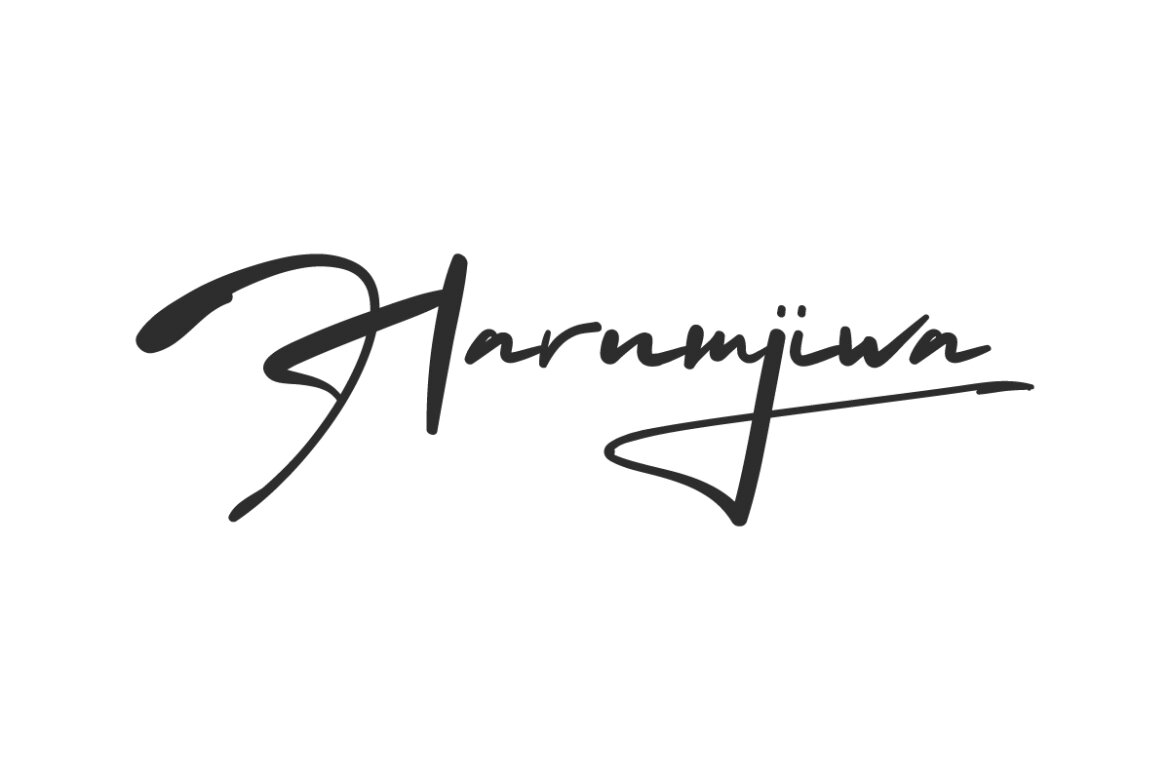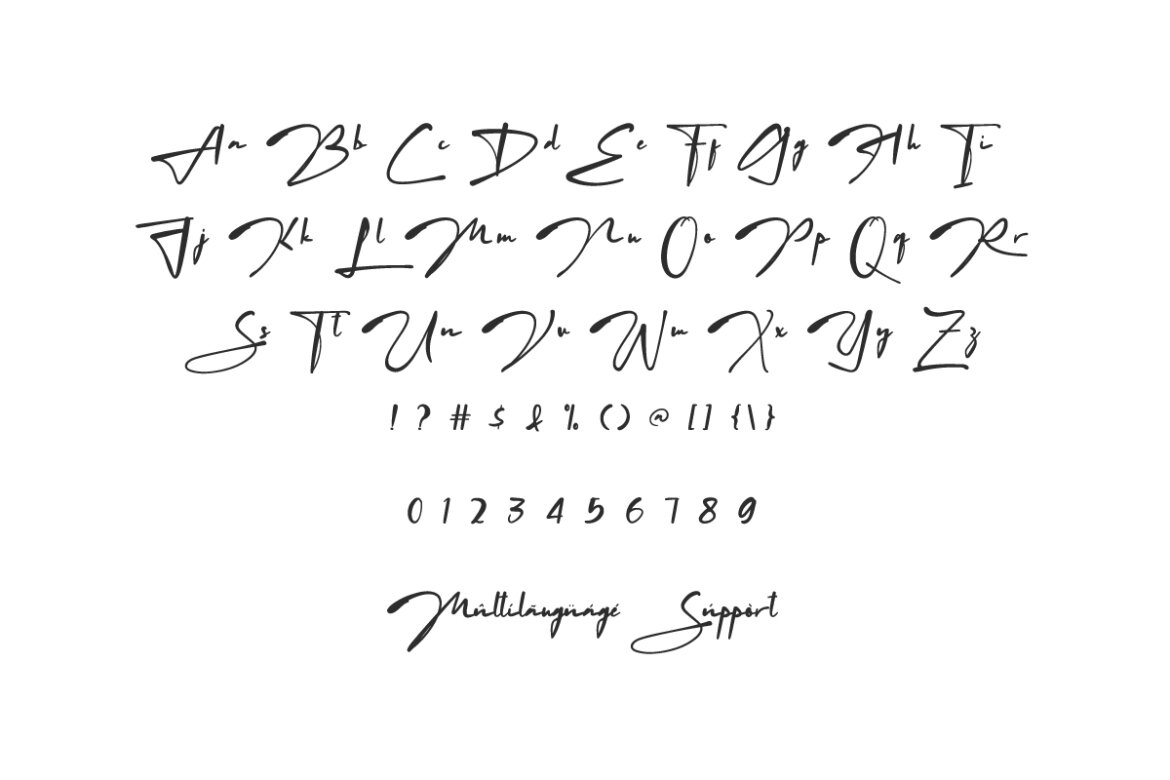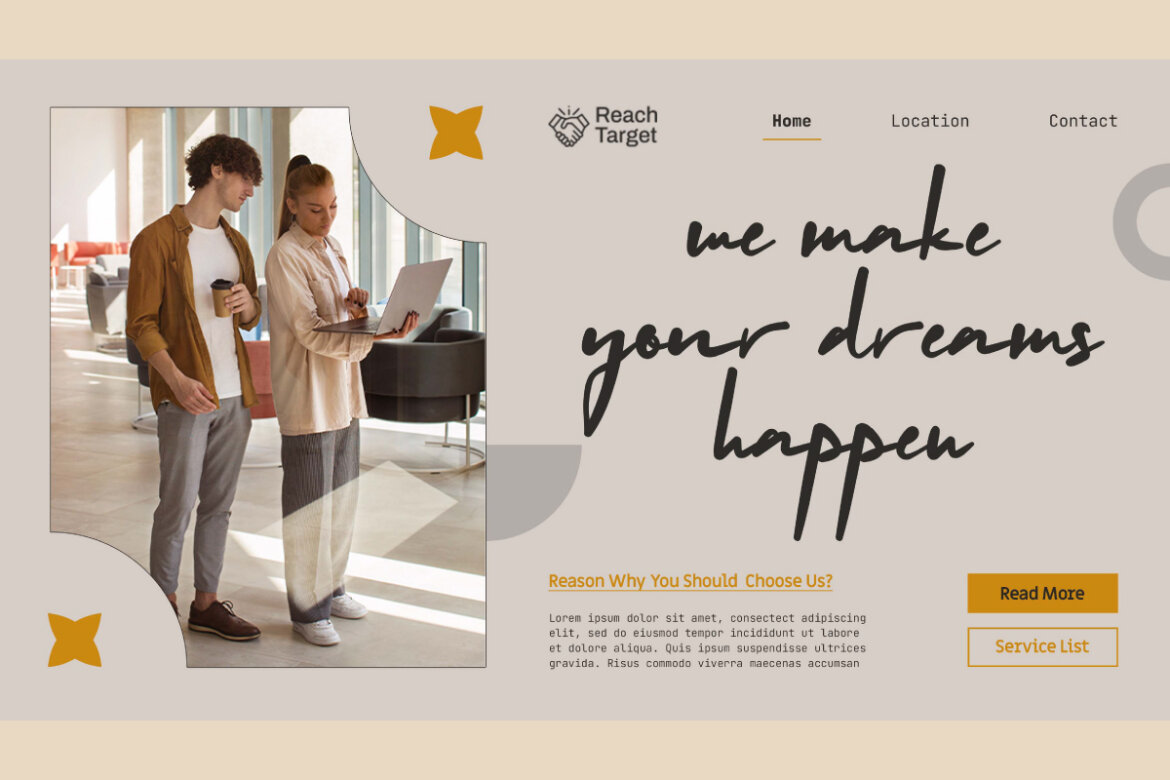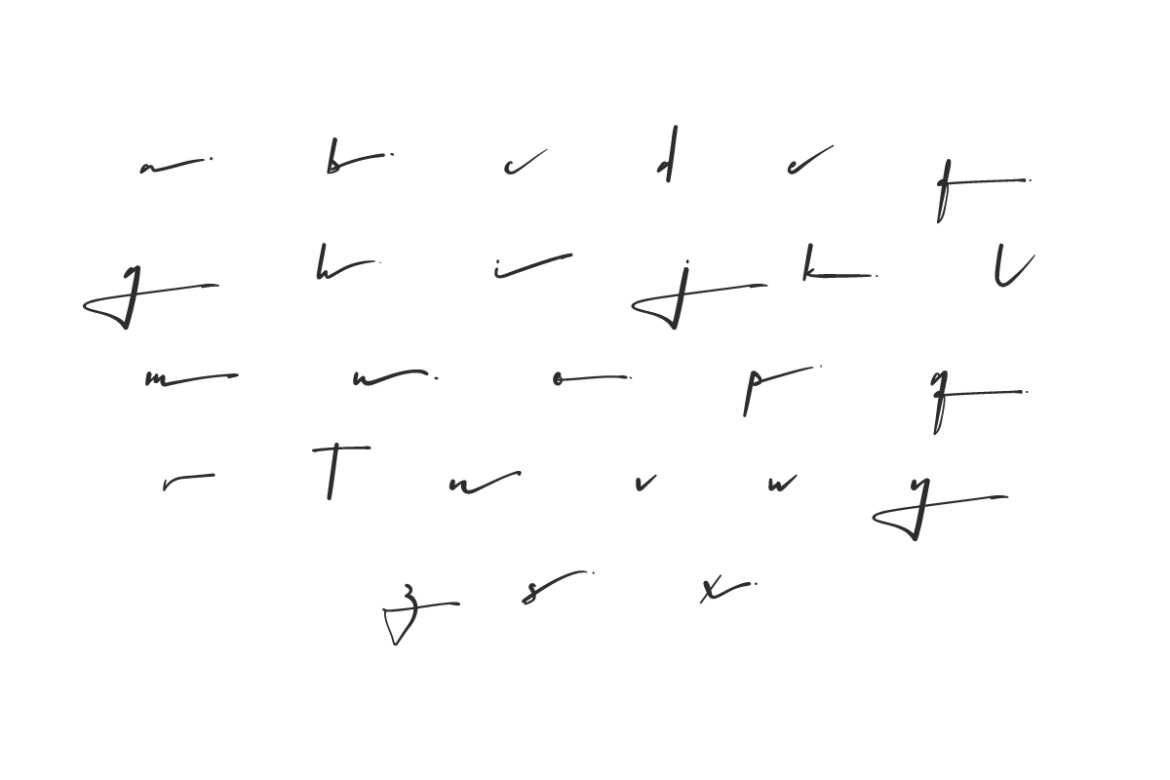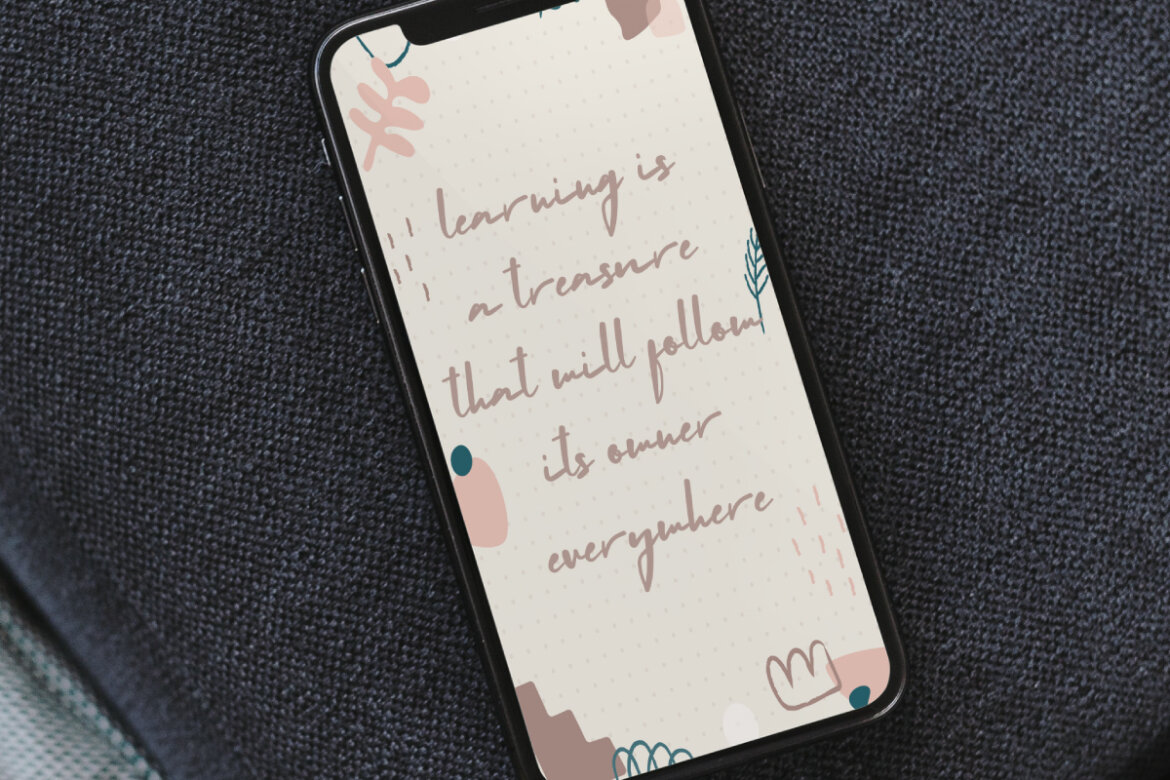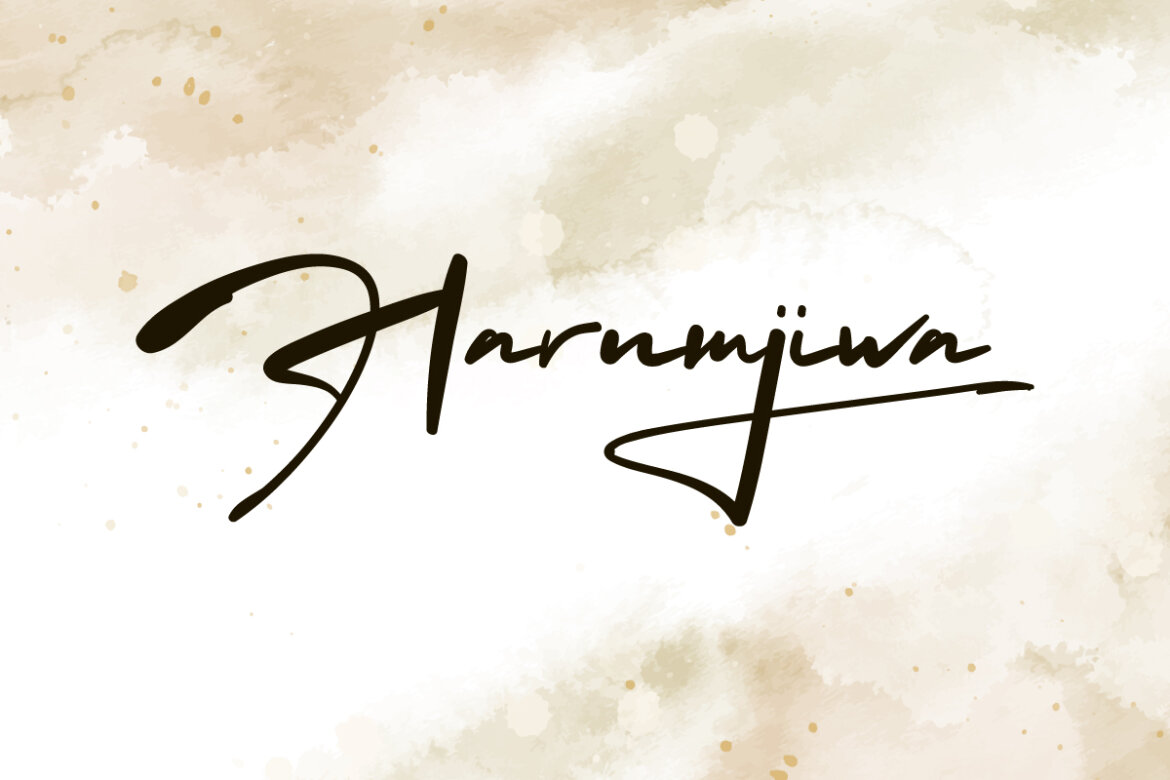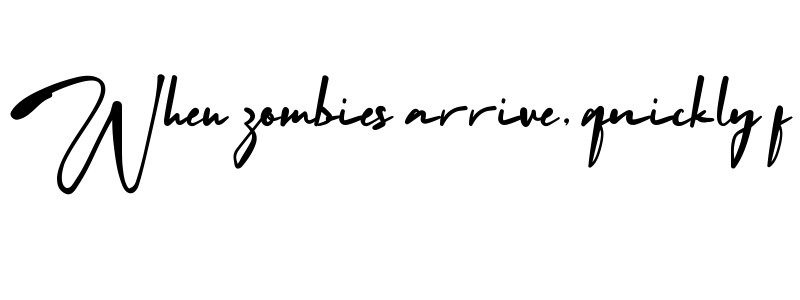
Harumjiwa FREE Font
Harumjiwa Font is beautiful handwriting Signature font with a bold black ink sketch. The font will add artistic touch and an authentic looks to any creative project including brandings, apps, billboard, book titles, cover, greeting card, logo design, poster, product packaging, quotes, stationery, sticker, title, website, wedding invitation, and much more.
Harumjiwa Font includes a complete set of Basic Uppercase and Lowercase Characters, Numbers, Punctuation Marks and Symbols. Also with Alternate characters prepared to provide different options so as to present a distinctive handwritten touch for any industry, such as advertising & marketing media, author, boutique, cafe, cosmetic, event organizer, graphic design, handicraft, skincare, spa salon, start-up business, or anything else.